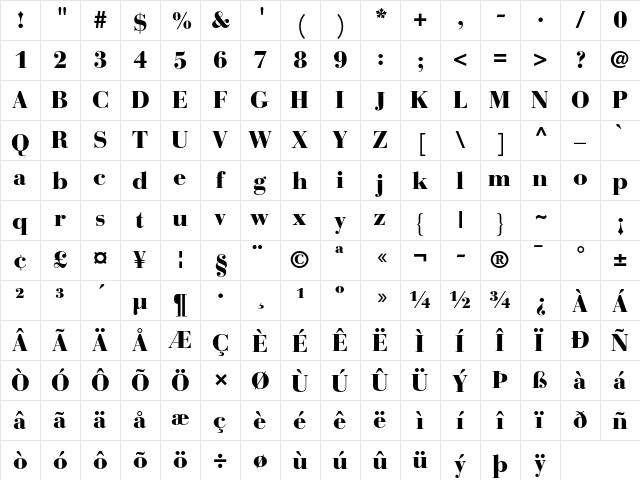
Bauer Bodoni Std 2 Black
| Designer | Heinrich Jost, Louis Hڬl |
Design Context for Bauer Bodoni Std 2 Typeface
Bauer Bodoni Std 2 offers clean, dependable letterforms without strong stylistic allegiance, making it a practical choice for designers who need flexibility.